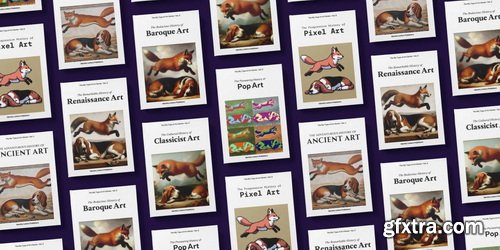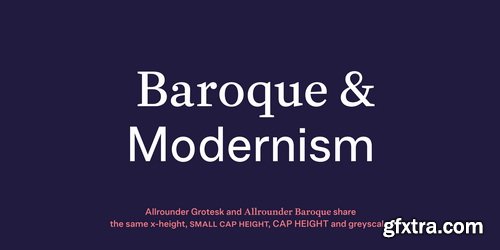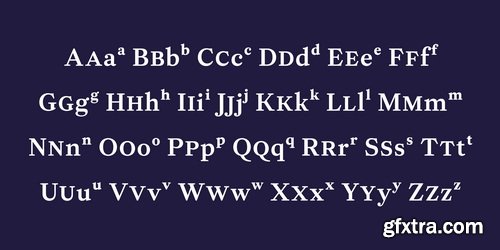
- Allrounder Baroque is a transitional serif member of the Allrounder superfamily. A playful and dynamic medium-contrast typeface, its lush shapes guide the reader’s eye across the page.
- Like its famous Baroque-era ancestors penned by van Dijck, Fleischmann, and Baskerville, Allrounder Baroque is an ideal book typeface. Set large, it’s at home in luxury branding and serious-yet-approachable corporate design.
- At 10 styles and 900+ glyphs, with extended language support and OpenType features, Allrounder Baroque brings workhorse qualities to the table. Its vertical metrics and texture match those of the other Allrounder fonts: Combining fonts was never easier than with the Allrounder type system.